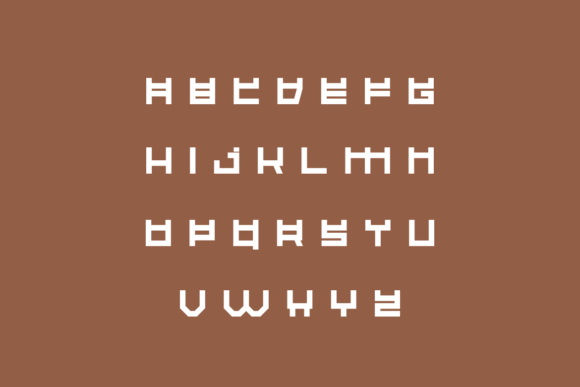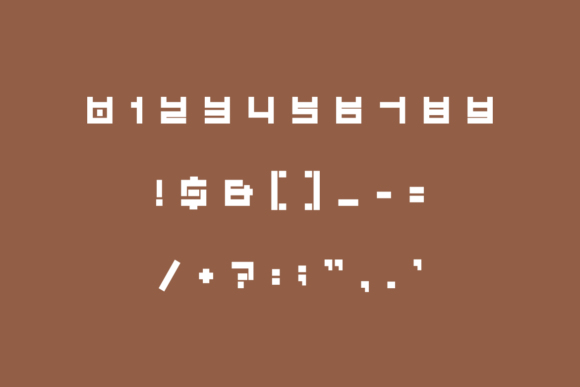
The Ultimate DCODES Font Review: A Modern Bold Display Font for Creative Projects
I’ll never forget the time I was working on a logo design project for a trendy e-sport team. My client was clear: they wanted a bold, eye-catching font that would stand out in a crowded gaming community. I scoured the internet for the perfect font, but nothing seemed quite right. That was until I stumbled upon the DCODES font. In this review, I’ll share my experience with this modern bold display font and explore its features, uses, and alternatives.
What I Love About DCODES Font
The DCODES font has quickly become a go-to in my design toolkit. Here are some of the things I love about it:
- ✨ Modern and authentic look: The font has a fresh, contemporary feel that’s perfect for branding projects that need to look current and stylish.
- ✅ Versatility: DCODES is suitable for a wide range of applications, from logo design and t-shirt printing to e-sport branding and more.
- 🔥 Bold and eye-catching: The font’s bold weight makes it perfect for headlines, titles, and other attention-grabbing elements.
While DCODES is an excellent font, it’s not without its quirks. Here are a few things to keep in mind:
- 🤔 Limited use for body text: Due to its bold weight, DCODES may not be the best choice for body text or paragraphs. It’s better suited for headlines and titles.
- ⚠️ Glyph support: While DCODES has a range of glyphs and OpenType features, some users may find the selection limited compared to other fonts.
The Story Behind DCODES Font
DCODES was designed by a team of creatives who wanted to create a modern, authentic display font that would meet the needs of designers and crafters. The font’s bold weight and geometric feel make it perfect for a wide range of applications.
- Q: What is DCODES font best used for?
- A: DCODES is best used for bold headlines, titles, and other attention-grabbing elements.
- Q: Does DCODES support OpenType features?
- A: Yes, DCODES supports OpenType features, including glyphs and stylistic alternates.